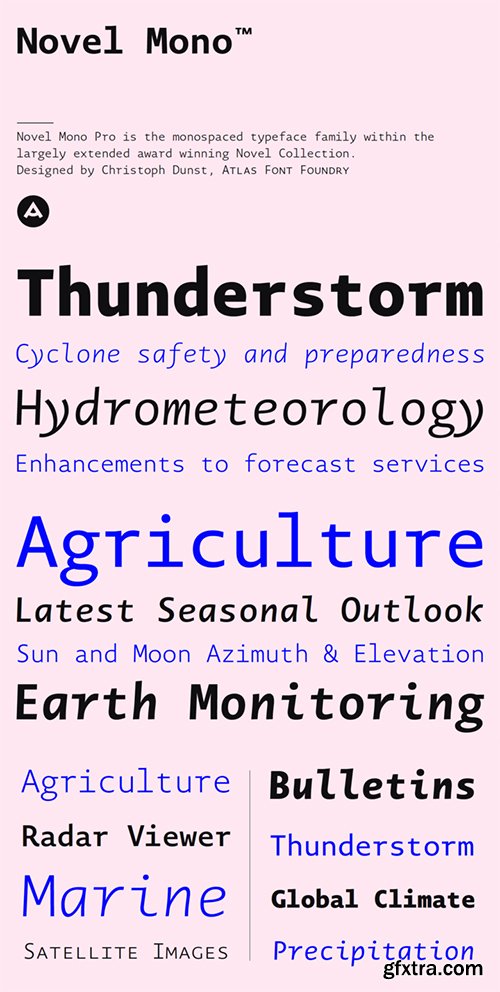
Novel Mono Pro is the monospaced typeface family within the largely extended award winning Novel Collection, also containing Novel Pro, Novel Sans Condensed Pro, Novel Sans Rounded Pro and Novel Sans Office Pro. P A S S W O R D : NOMOPRGFXTRA TO MAC USERS: If password doesn't work, use this archive program: RAR Expander 0.8.5 Beta 3 and extract password protected files without error.
Novel Mono Pro has a carefully attuned character design and a well balanced weight contrast. It combines the feeling of a modern humanist with the technical appearance of a typewriter. Many similarities with the other typeface families within the Novel Collection enable designers to combine the families and reach highest quality in typography.Novel Mono Pro [948 glyphs] comes in 12 styles and contains small caps for the uprights and the italics, ligatures, lining figures, hanging figures, small caps figures, positive and negative circled figures for upper and lower case, superior and inferior figures, fractions, extensive language support, arrows for uppercase and lowercase and many more OpenType™ features